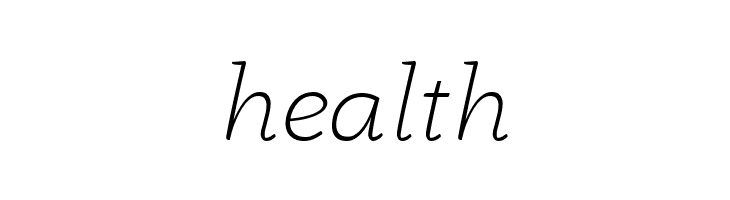
Lexend Deca Regular Font
A modern, geometric sans-serif font with excellent legibility.
Vonique 43 Font
A modern, geometric font with clean lines and a minimalist design.
Lexend Giga Regular Font
A modern, clean sans-serif font with excellent readability.
AnaphoraTrial-Bold Font
A bold serif font with strong strokes and classic-modern appeal.
AnaphoraTrial-ExtraBold Font
A bold and robust font with strong, thick strokes for a confident and authoritative look.
Lexend Exa Regular Font
A modern, clean sans-serif font with uniform strokes and excellent readability.
Lexend Mega Regular Font
A modern, clean sans-serif font with rounded edges and consistent stroke width.
AnaphoraTrial-Medium Font
A modern serif font with medium weight and balanced proportions.
AnaphoraTrial-Book Font
A classic serif font with a balanced and elegant appearance.
Lexend Zetta Regular Font
A modern, geometric sans-serif font with excellent readability.
AnaphoraTrial-Fat Font
A bold, robust font with thick strokes, perfect for impactful headlines.
AnaphoraTrial-FatItalic Font
A bold, italicized font with a dynamic and energetic style.
Lexend Tera Regular Font
AnaphoraTrial-ExtraBoldItalic Font
A bold, italic font with a dynamic and modern style.
AnaphoraTrial-Regular Font
A modern serif font with elegant and refined letterforms, suitable for formal use.
AnaphoraTrial-BoldItalic Font
A bold and italicized font with strong, slanted strokes and a dynamic presence.
RUBYSARP Font
A bold and distinctive font with a strong, authoritative presence.
AnaphoraTrial-MediumItalic Font
A medium weight, italic serif font with elegant curves and subtle serifs.
AnaphoraTrial-Light Font
A clean, elegant font with a light weight and modern, slightly condensed design.
Anaphora Stencil Book Font